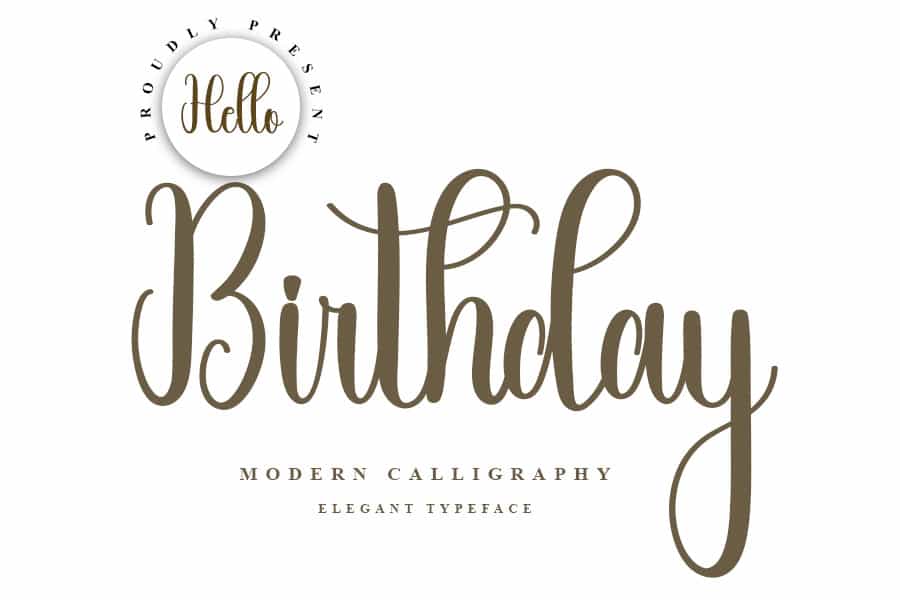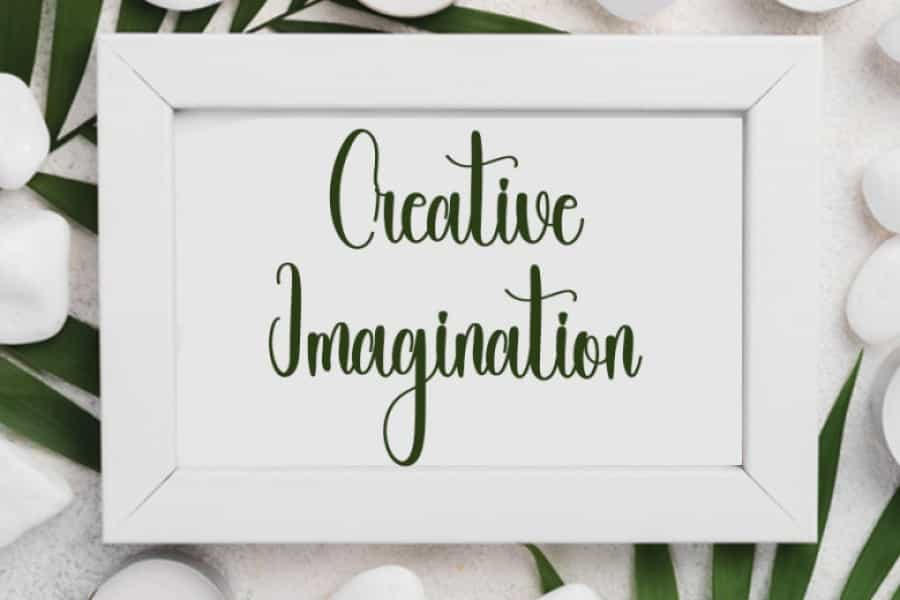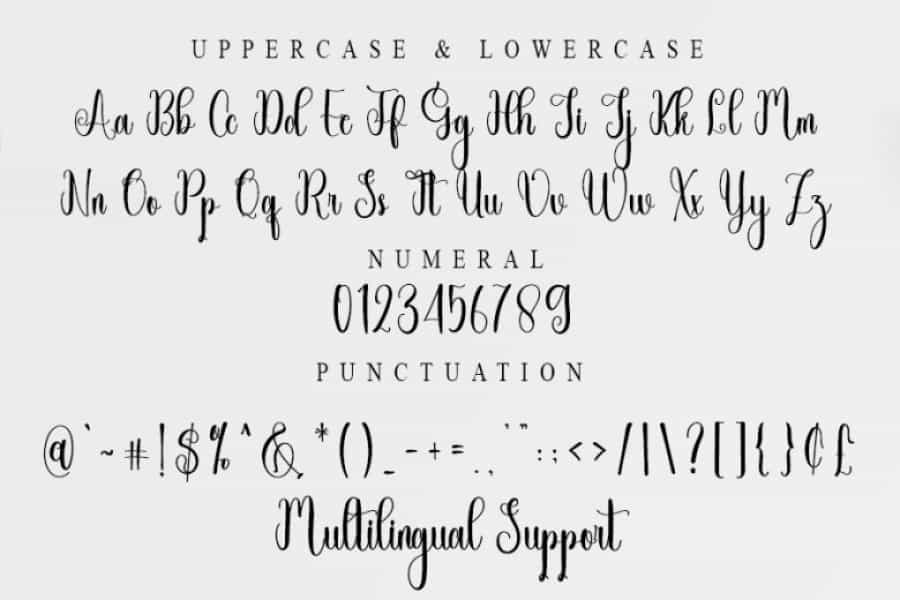
Discover Hello Birthday Font, part of the Calligraphy collection—a versatile and unique font perfect for adding a personal touch to your projects. Download it for free and enjoy crafting designs with style, from invitations to social media posts. This font is available exclusively for personal use, giving you the freedom to create without limits. Unlock your creativity with Hello Birthday Font today!
Hello Birthday is an elegant script calligraphy font featuring modern style and design elements inspired by traditional and timeless calligraphy. Being PUA encoded, Hello Birthday allows access to all its glyphs and swashes effortlessly!